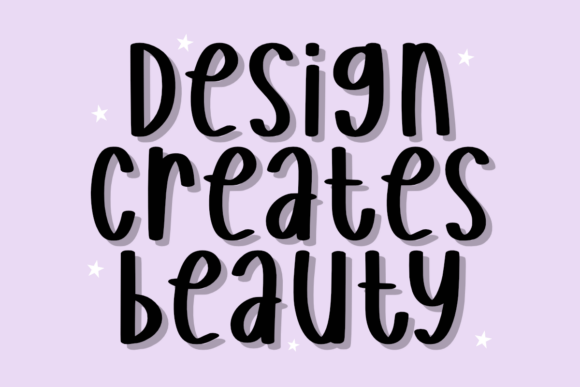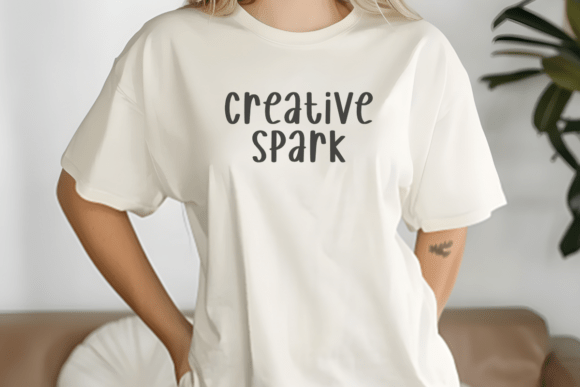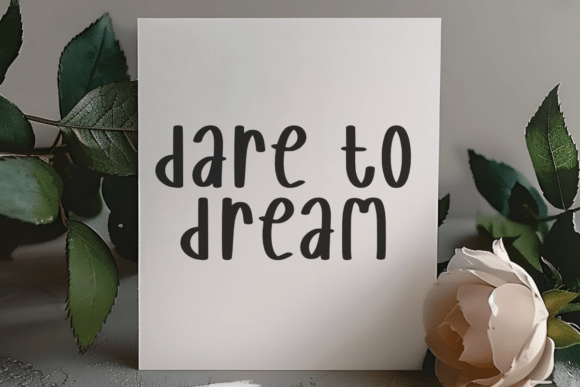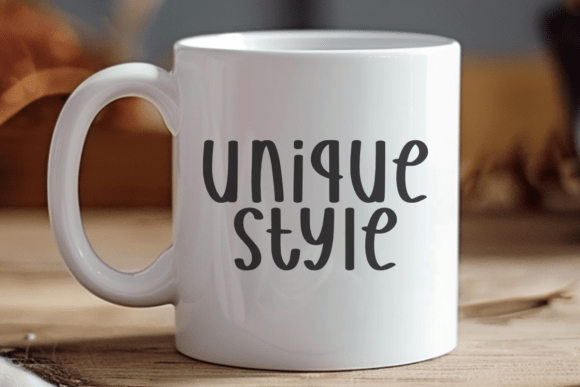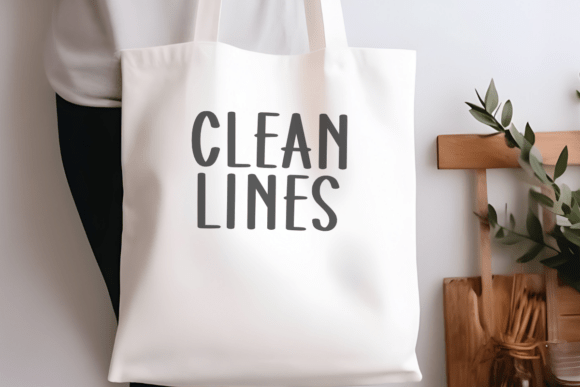
Introducing Design Font: The Perfect Handwriting Font for Creative Moms
Are you a creative mom who loves DIY projects, journaling, and crafting with your Cricut machine? Look no further! We’re excited to introduce Design Font, a cute and playful handwriting font that’s perfect for planners, stickers, cards, quotes, and craft projects. In this article, we’ll explore the features and benefits of Design Font, and show you how it can elevate your creative projects.
What is Design Font?
Design Font is a handwriting font that’s designed to add a personal touch to your projects. It’s a unique and playful font that’s perfect for creative moms who want to add a bit of whimsy to their planners, stickers, cards, and quotes. With Design Font, you can create beautiful and eye-catching projects that reflect your personality and style.
Features of Design Font
So, what makes Design Font so special? Here are some of its key features:
- Cute and Playful: Design Font is a handwriting font that’s designed to be cute and playful. It’s perfect for projects that require a bit of personality and whimsy.
- Perfect for Planners: Design Font is ideal for planners, journals, and diaries. You can use it to add headings, titles, and quotes to your planner pages.
- Great for Stickers and Cards: Design Font is also perfect for stickers, cards, and other paper crafts. You can use it to add personal touches to your projects and make them more special.
- Easy to Read: Design Font is easy to read, even in small sizes. This makes it perfect for projects that require a lot of text, such as journals and planners.
Benefits of Using Design Font
So, why should you use Design Font for your projects? Here are some of the benefits of using this font:
- Adds Personality: Design Font adds a personal touch to your projects, making them more unique and special.
- Versatile: Design Font is versatile and can be used in a variety of projects, from planners and journals to stickers and cards.
Tips for Using Design Font
Here are some tips for using Design Font in your projects:
- Use it for Headings: Design Font is perfect for headings and titles. Use it to add a personal touch to your planner pages and journals.
- Mix it with Other Fonts: Design Font looks great when paired with other fonts. Try mixing it with a bold font for a striking contrast.
- Use it for Quotes: Design Font is perfect for quotes and phrases. Use it to add inspirational quotes to your planner pages and journals.
- Experiment with Colors: Design Font looks great in a variety of colors. Experiment with different colors to find the one that works best for your project.
Design Font is a cute and playful handwriting font that’s perfect for creative moms who love DIY projects, journaling, and crafting with their Cricut machines. With its unique and playful design, Design Font is ideal for planners, stickers, cards, quotes, and craft projects. Whether you’re a seasoned crafter or just starting out, Design Font is a great addition to your font collection. So why wait? Download Design Font today and start creating beautiful and eye-catching projects that reflect your personality and style!